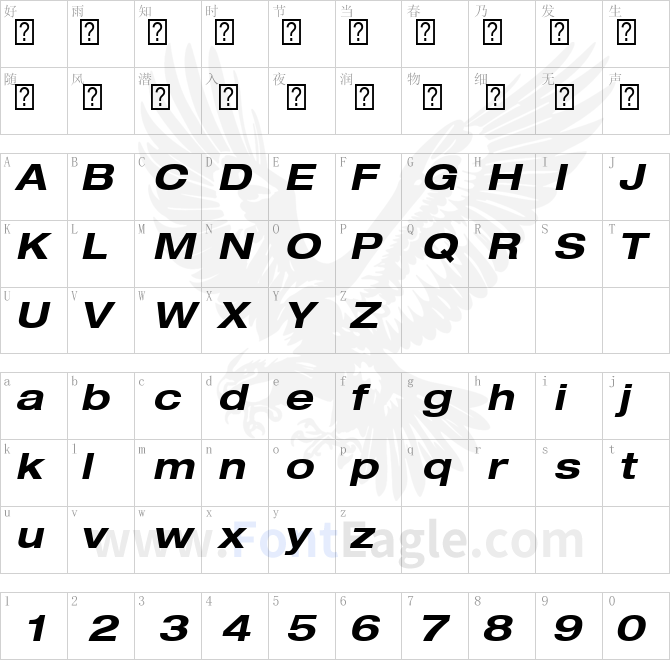
Helvetica-Neue-LT-Com-73-Bold-Extended-Oblique is a great font, widely used in graphic design, single-page menu design, poster design and other fields, and is deeply loved by designers.Helvetica-Neue-LT-Com-73-Bold-Extended-Oblique download.